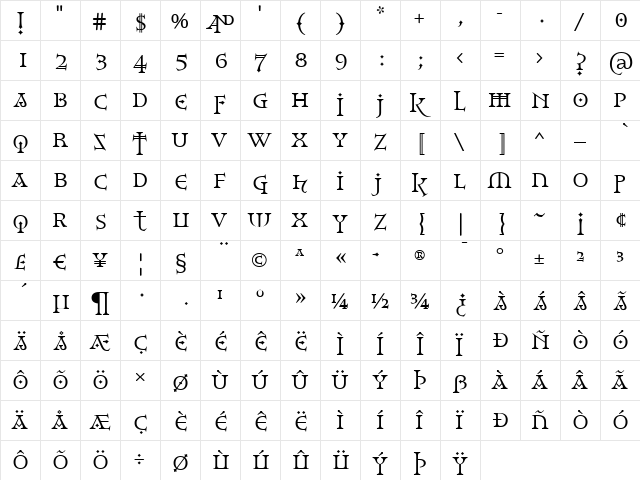
Alchemy Gold B18 Regular Font Preview
Alchemy Gold B18 Regular
Alchemy Gold B18 Regular Font Details
Design Context for Alchemy Gold B18 Typeface
Alchemy Gold B18 is a composed and adaptable typeface that performs quietly and consistently across a wide range of design contexts.